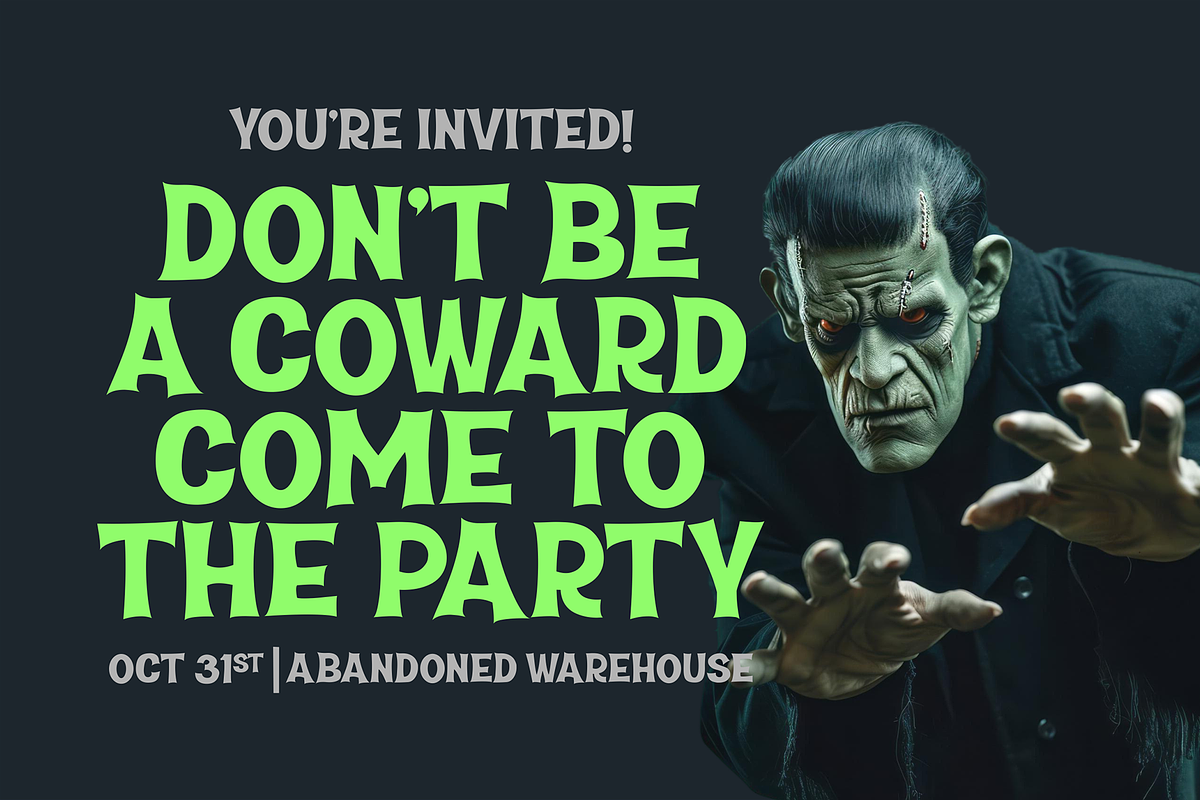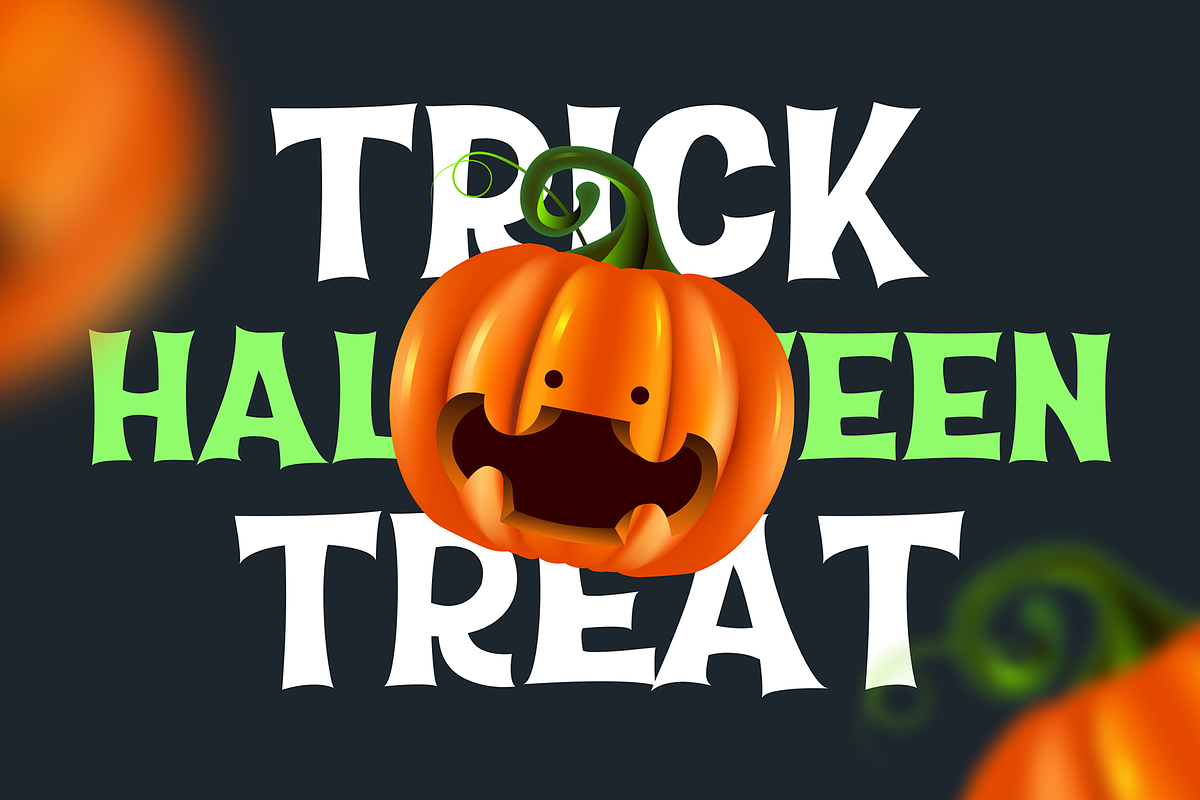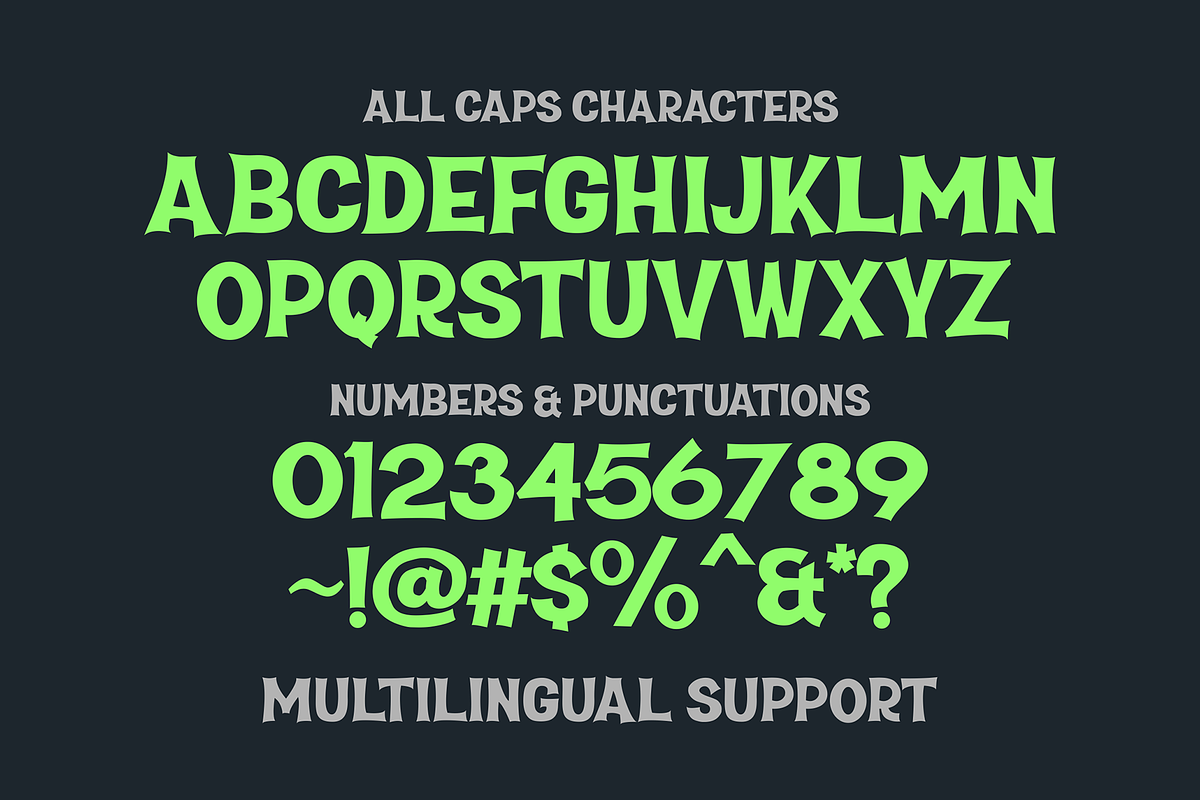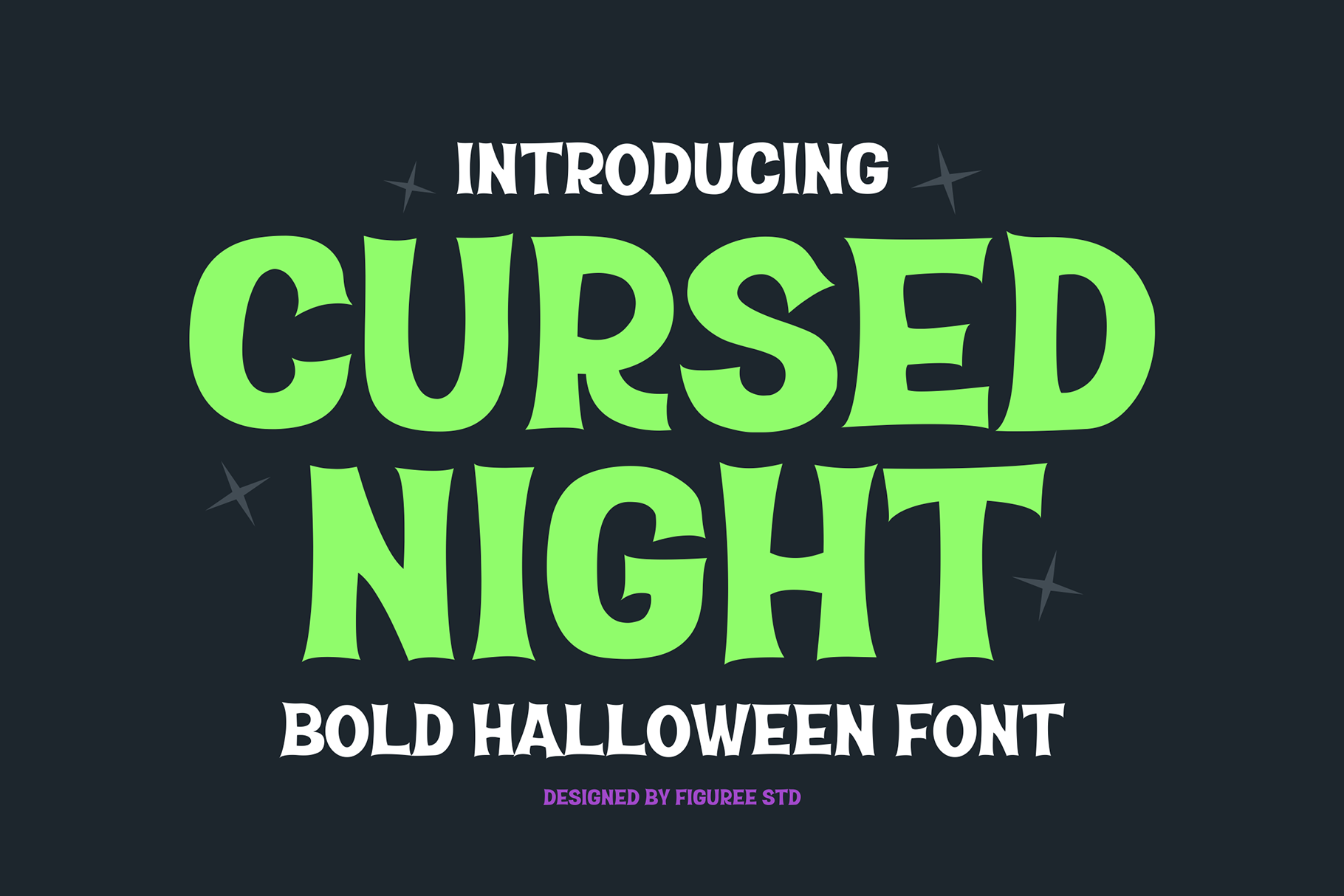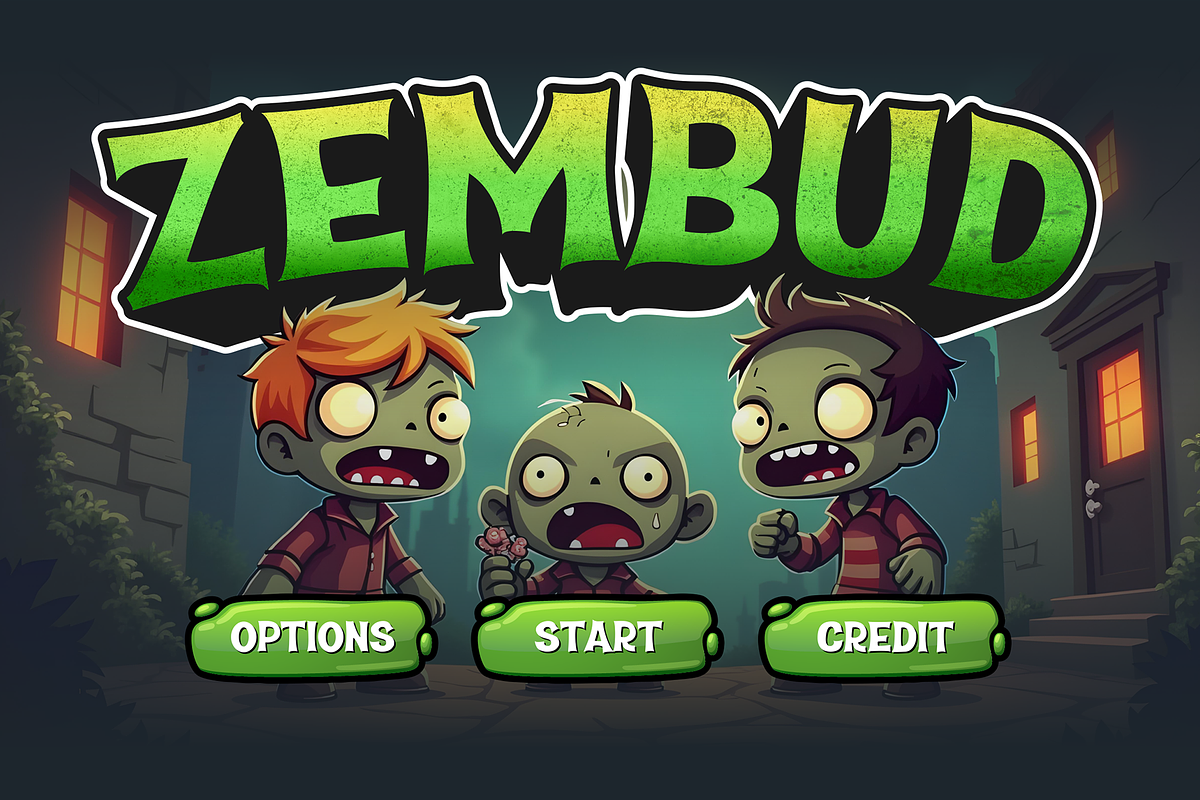
Cursed Night - Bold Halloween Font
Cursed Night is the ultimate font choice for all your Halloween designs. Combining bold, clean lines with a spooky aesthetic, this font brings a modern twist to traditional Halloween themes.
👻 Bold and Striking: The strong, defined characters of Cursed Night make it stand out in any design. Perfect for Halloween-themed posters, invitations, or merchandise, this font ensures your message is seen loud and clear.
🎃 Versatile and Modern: While it captures the eerie essence of Halloween, Cursed Night's clean design makes it versatile enough for a range of projects. Whether you're going for a playful or ominous vibe, this font adapts to your creative vision.
🕸️ Halloween Spirit: Cursed Night embodies the spirit of the season, making it an essential tool for designers looking to add a touch of frightful fun to their work. Its bold presence and modern flair make it a go-to choice for any Halloween project.
Elevate your Halloween designs with Cursed Night—a bold, clean font that strikes the perfect balance between spooky and stylish.